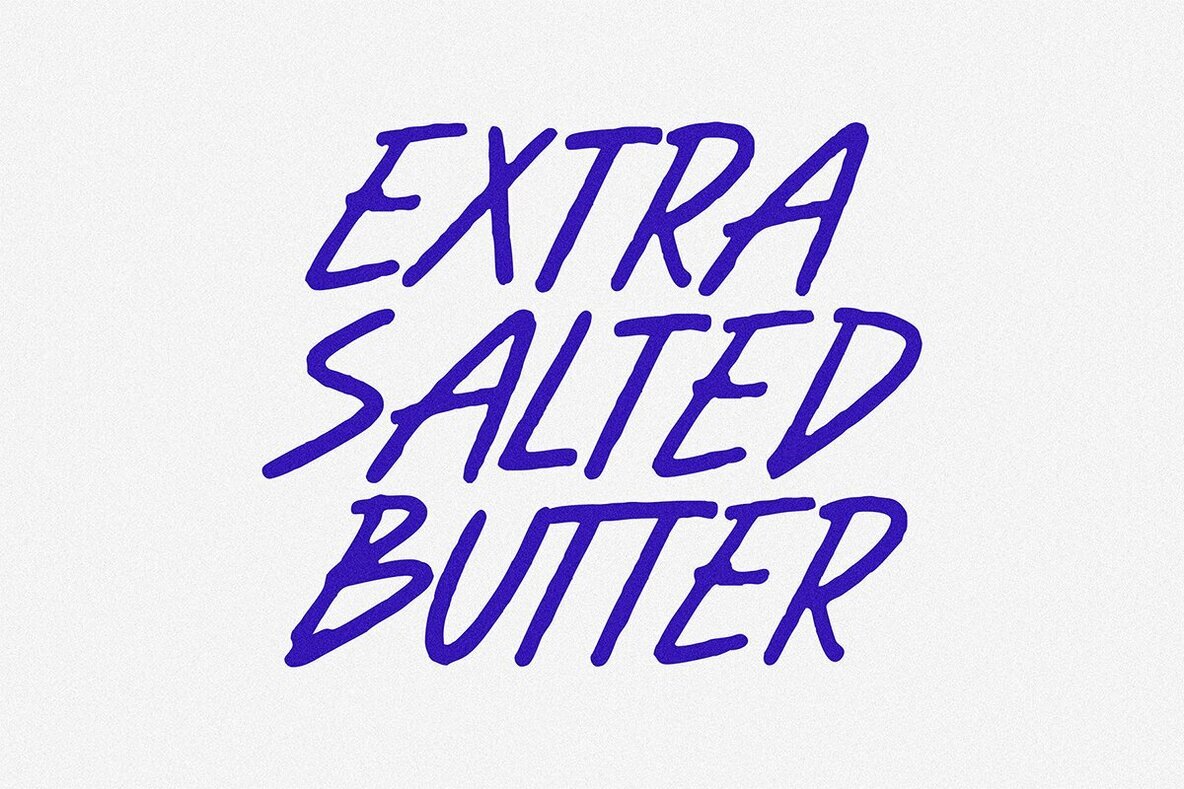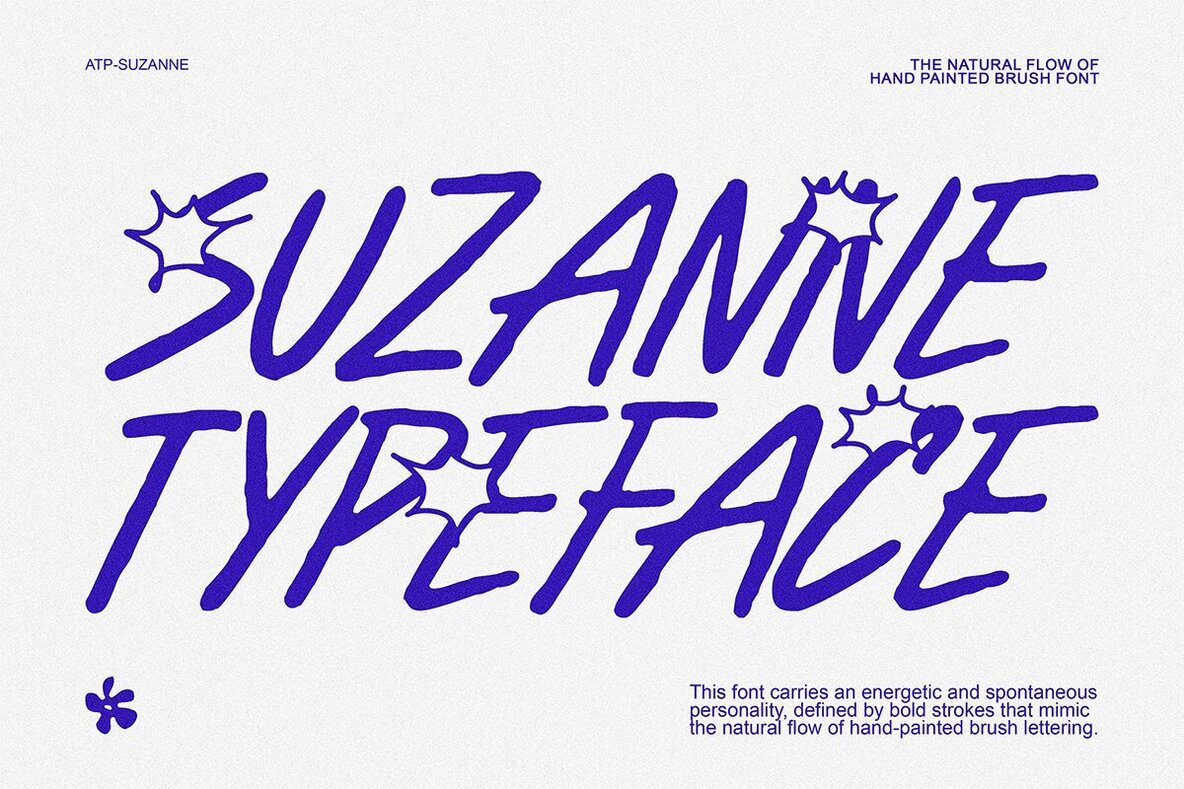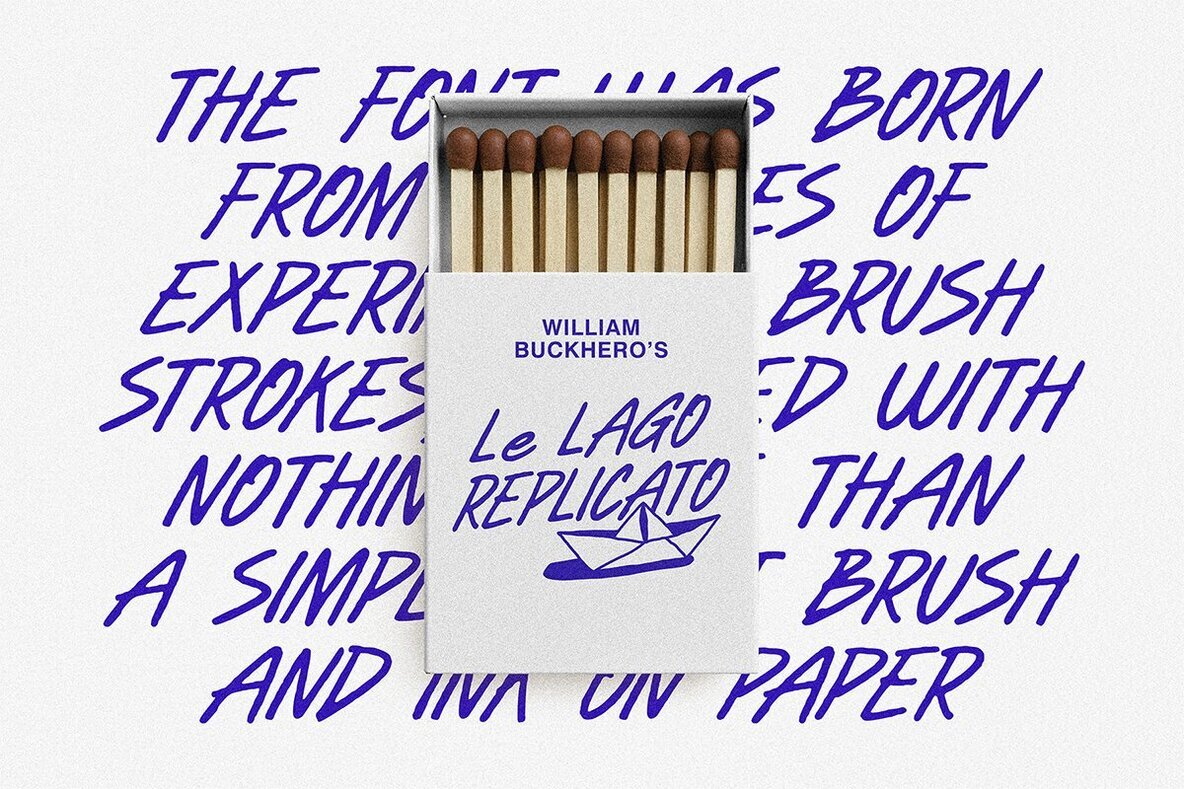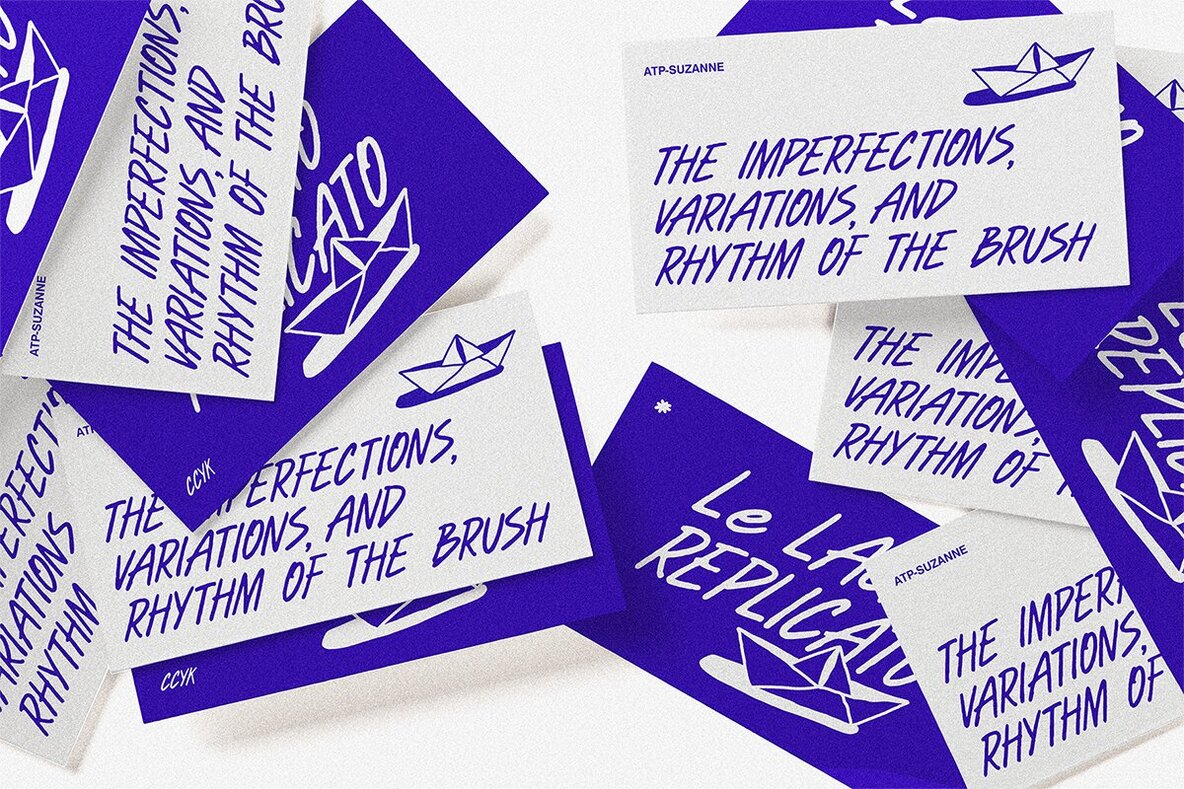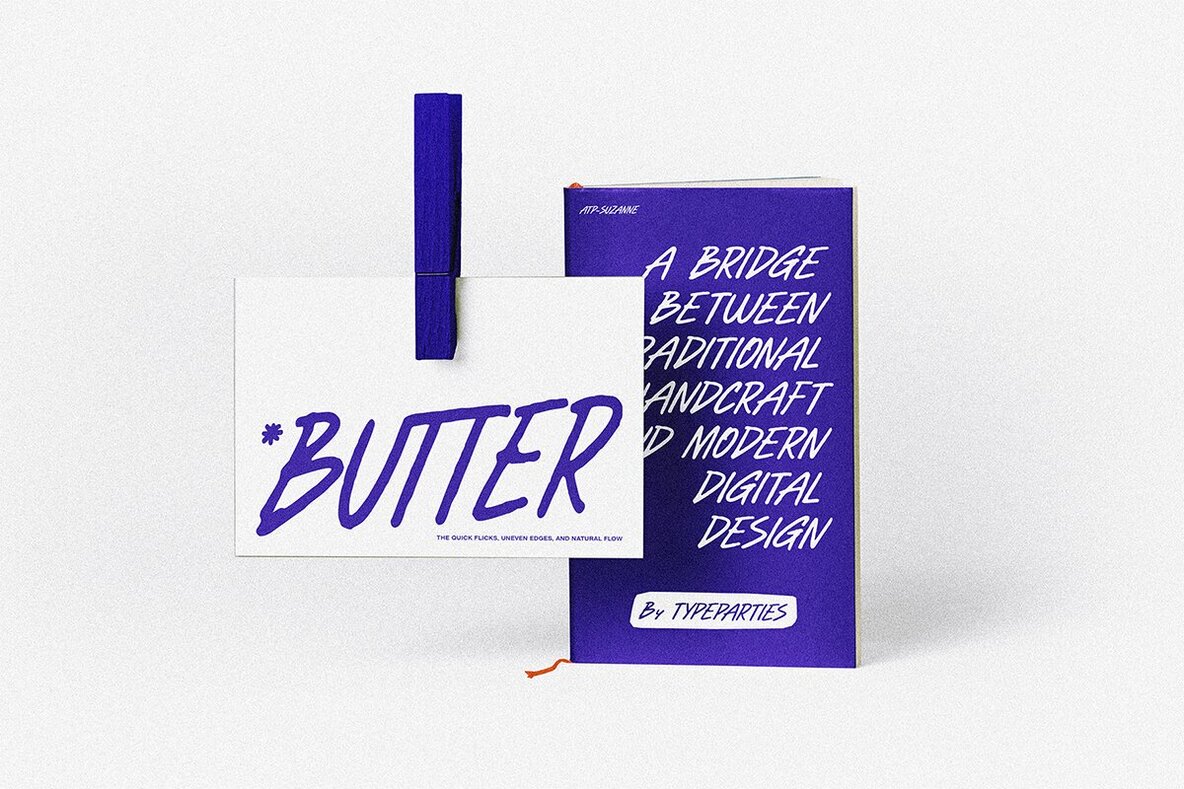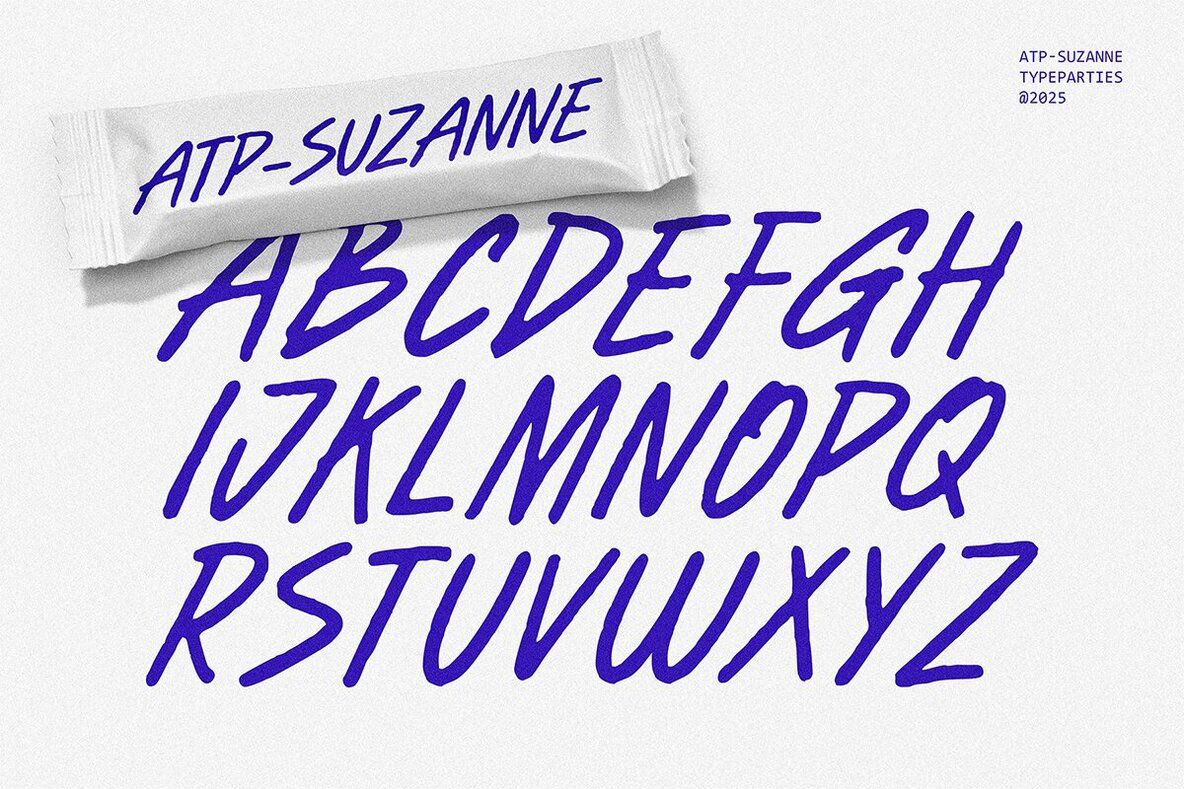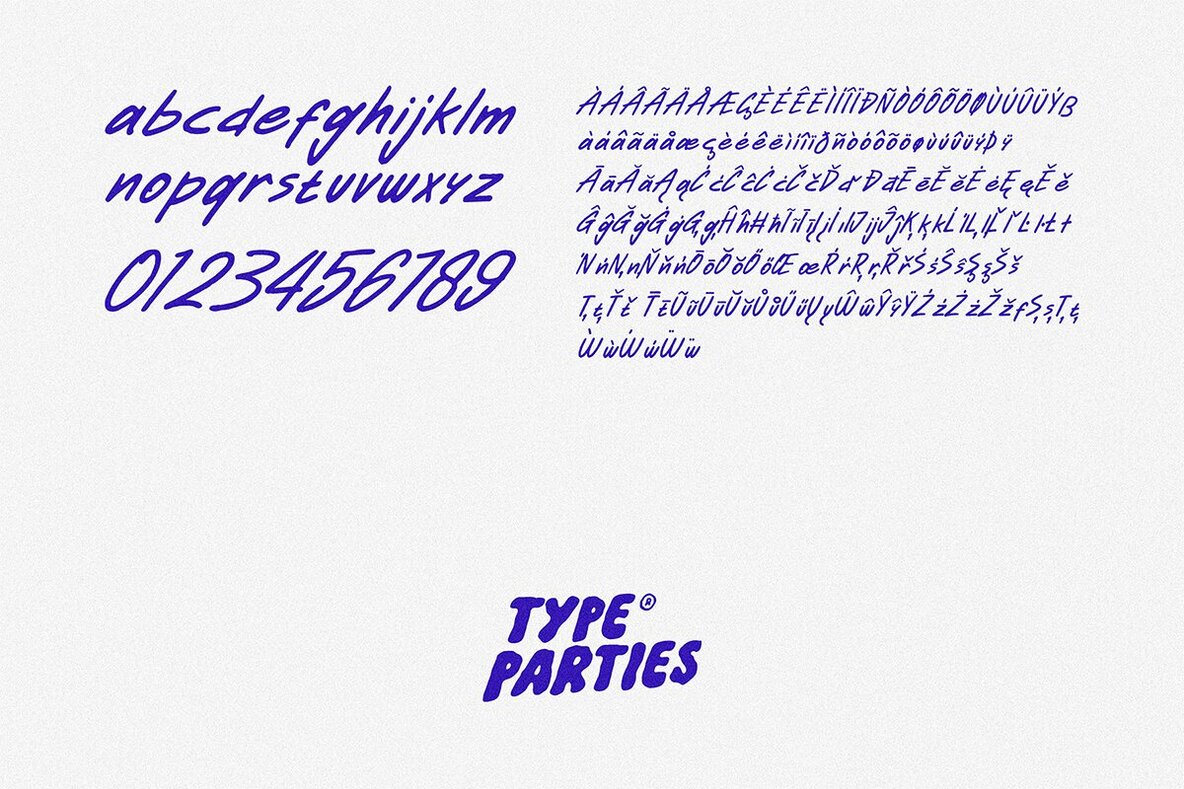
Suzanne Font
ATP Suzanne
This font exudes an energetic and spontaneous flair, brought to life by its slender strokes reminiscent of hand-painted brush lettering. Each letter pulses with an innate vitality, maintaining a delicate balance between irregularity and harmony to reflect a raw, authentic character. The textured strokes evoke a sense of speed and emotion, perfect for creative endeavors that aim for a personal, expressive vibe. Its tall, condensed form provides a modern urgency, with brush-like nuances enhancing its handcrafted allure.Energetic Brush Font: A Bold Artistic Statement